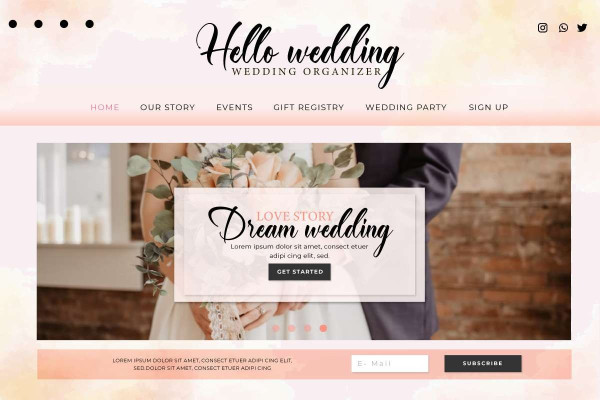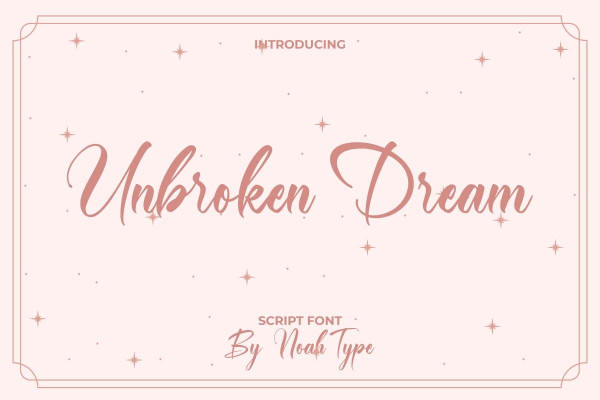
Unbroken Dream Font
Unbroken Dream Font is a modern stunning brush font with calligraphy style designed and made by NoahType. This font is made of cursive lines which looks good for a stylish design, such as business card, calendar, custom design, invitation, label, magazine catalog, menu, poster, product packaging, quote, title, website, and more!
Unbroken Dream Font includes full set of Uppercase and Lowercase Basic Characters, Numerals, and Punctuation. It also contain Ligature characters that will add perfection and making it suitable for many industries, such as cosmetic, fashion, florist, furniture, interior design, perfume, restaurant, skincare, spa and salon, wedding or event organizer, etc.